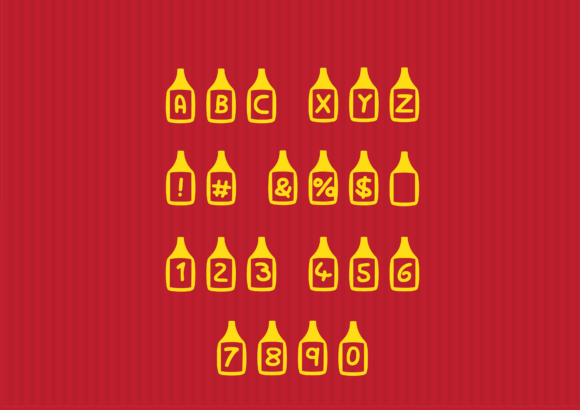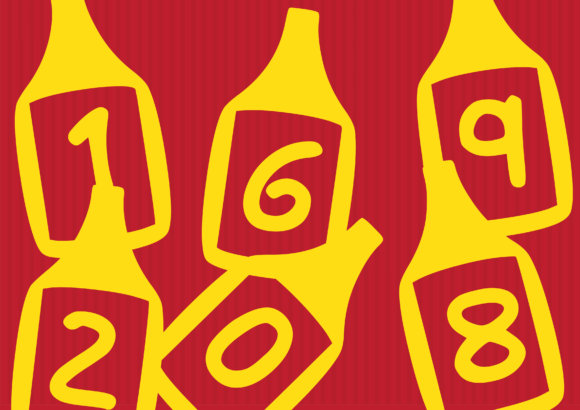
Introduction to Play Bottle Font
Have you ever been working on a creative project, pouring your heart and soul into it, only to feel like something is missing? That’s when I discovered the magic of the Play Bottle Font. This playful decorative font is more than just a design resource – it’s a game-changer.
Imagine adding a transparent background to your design, making it pop with the right typography. That’s exactly what the Play Bottle Font does. With its unique bottle theme, this font brings a touch of whimsy and fun to any project. And the best part? It’s available for free download, making it a valuable addition to any designer’s toolkit.
Whether you’re working on a branding project, a marketing campaign, or just a fun design for personal use, the Play Bottle Font is sure to elevate your work to the next level. Its high-quality design makes it a must-have for any designer looking to add a little extra creativity to their projects.
Key Features of Play Bottle Font
- Transparent background: The Play Bottle Font features a transparent background, allowing for seamless integration with any design project.
- High-quality design resource: This font is a high-quality design resource, ideal for creative projects that require a unique and eye-catching look.
- Unique bottle-inspired design: The Play Bottle Font features a unique, hand-drawn design inspired by bottles, adding a touch of whimsy and creativity to any project.
- Perfect for creative projects: The Play Bottle Font is ideal for use in creative projects, such as branding, packaging, and advertising, where a distinctive and playful design is required.
Honest Review: Play Bottle Font
As a designer, I’m always on the lookout for high-quality design resources to elevate my creative projects. Recently, I had the chance to work with the Play Bottle Font, and I must say, it’s a gem.
- Unique and playful design: The font’s quirky style adds a touch of whimsy to any project, making it perfect for creative and fun designs.
- High-quality vector graphics: The font is built with high-quality vector graphics, ensuring it scales well for any use case.
- Transparent background: This feature allows for seamless integration with any background, giving designers complete control over their design.
- Limited character set: The font only includes a limited set of characters, which may not be suitable for projects requiring a wide range of characters.
- No extended font family: The font doesn’t have an extended family, which may limit its use in complex design projects.
Overall, the Play Bottle Font is a great addition to any designer’s toolkit. Its unique design and high-quality vector graphics make it perfect for creative projects, and the transparent background feature gives designers complete control over their design. While it has some limitations, it’s a great resource for designers looking for a fun and playful font.
No, the Play Bottle Font does not have a transparent background. It’s a solid font with a unique design that’s perfect for adding a touch of whimsy to your creative project. If you need a font with a transparent background, you may need to explore other design resources.